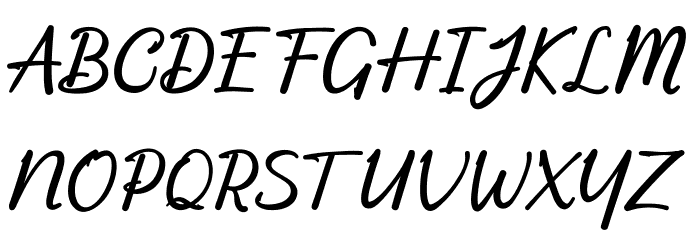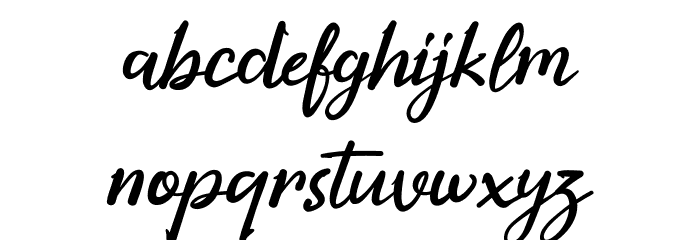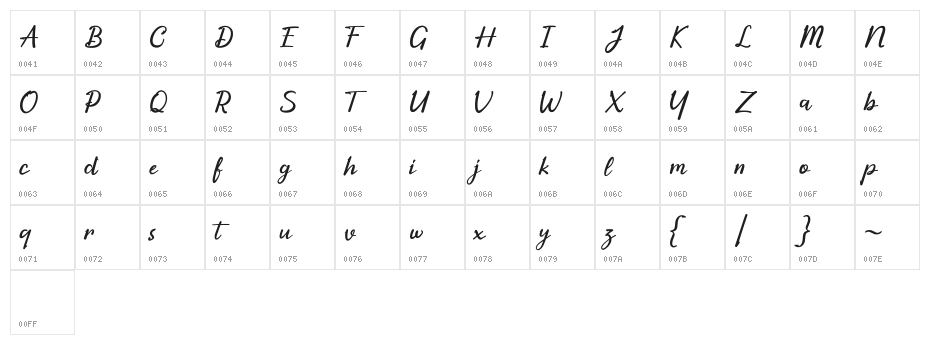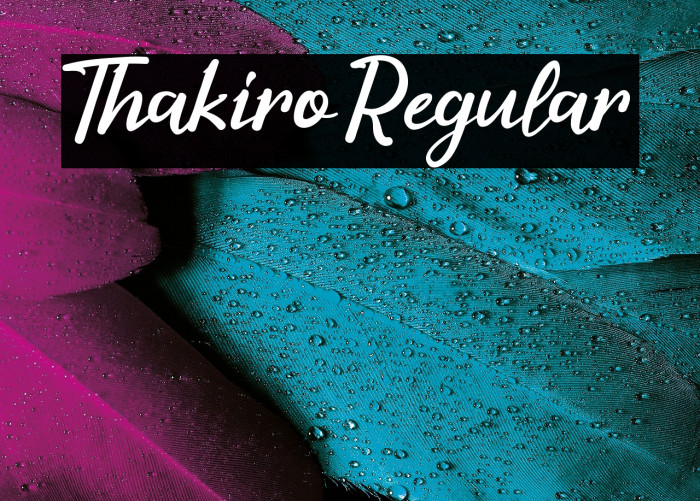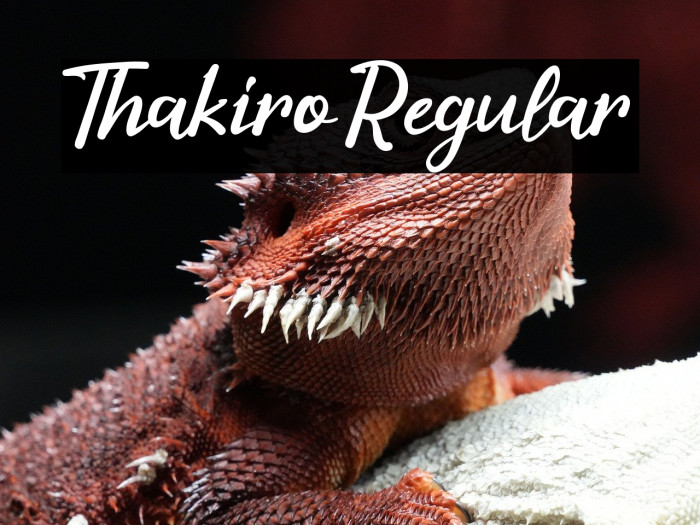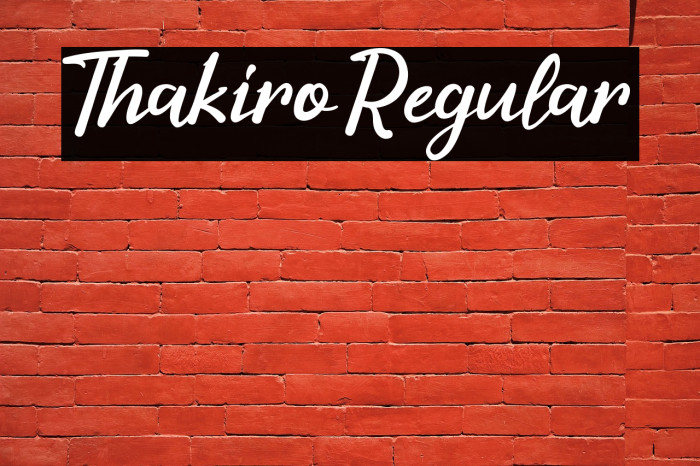
Thakiro Regular Font
This font features a dynamic and fluid script style, characterized by its elegant and flowing letterforms. The uppercase letters are slightly more structured, maintaining a sense of formality, while the lowercase letters exhibit a more casual and connected appearance. The strokes are smooth and consistent, with a moderate contrast between thick and thin lines, giving it a lively yet sophisticated look. The font's overall design is reminiscent of traditional calligraphy, making it suitable for projects that require a touch of elegance and personal flair.
A dynamic script font with elegant, flowing letterforms and moderate contrast.
- Proposed Projects: Ideal for wedding invitations, greeting cards, branding, and logo design where a personal and elegant touch is desired.
- Overall Style: Elegant, Calligraphic
- Use Case: Logos, Invitations, Decorative text